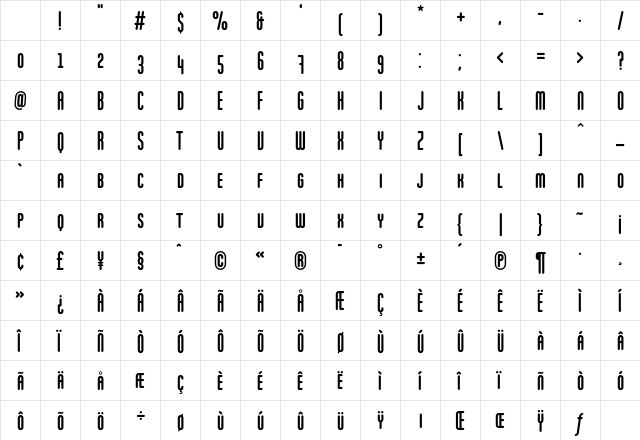
Complete Marten Caps glyph index. Displaying only characters natively supported by Marten Caps font.
Marten is a composed and adaptable typeface that performs quietly and consistently across a wide range of design contexts.